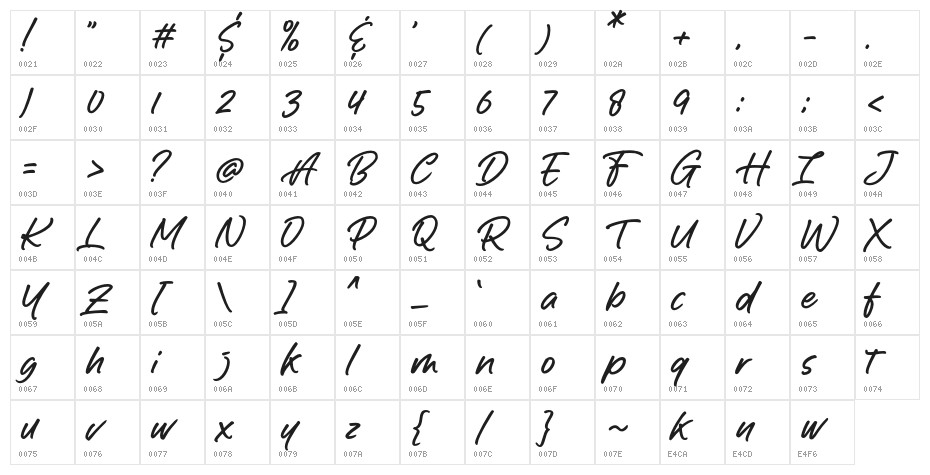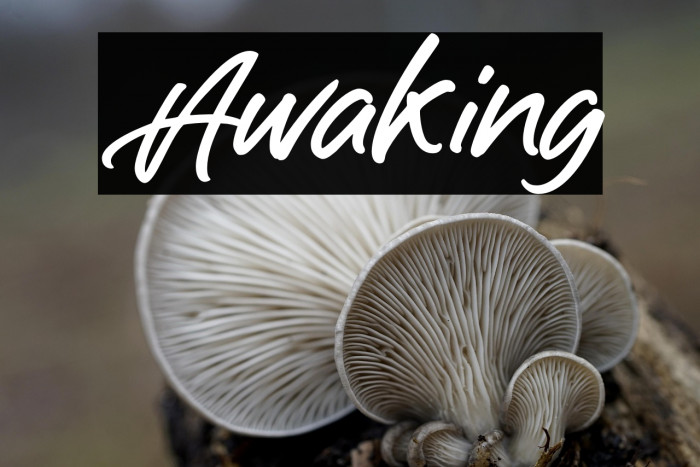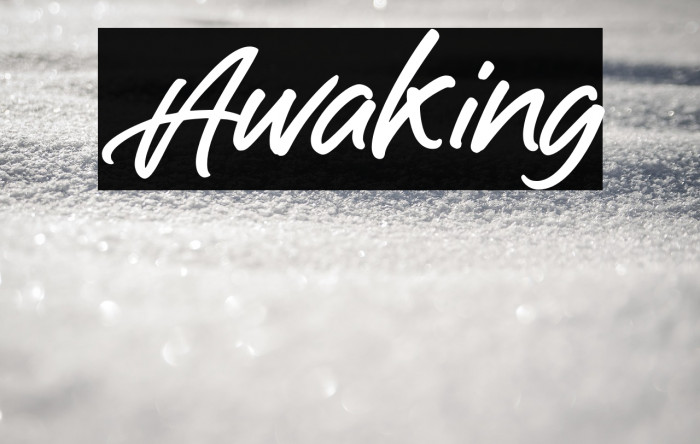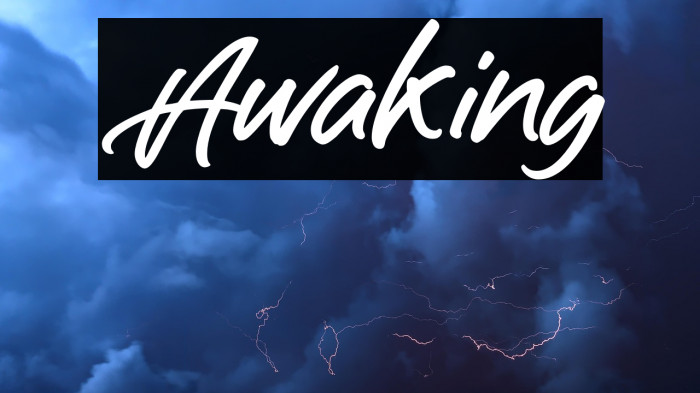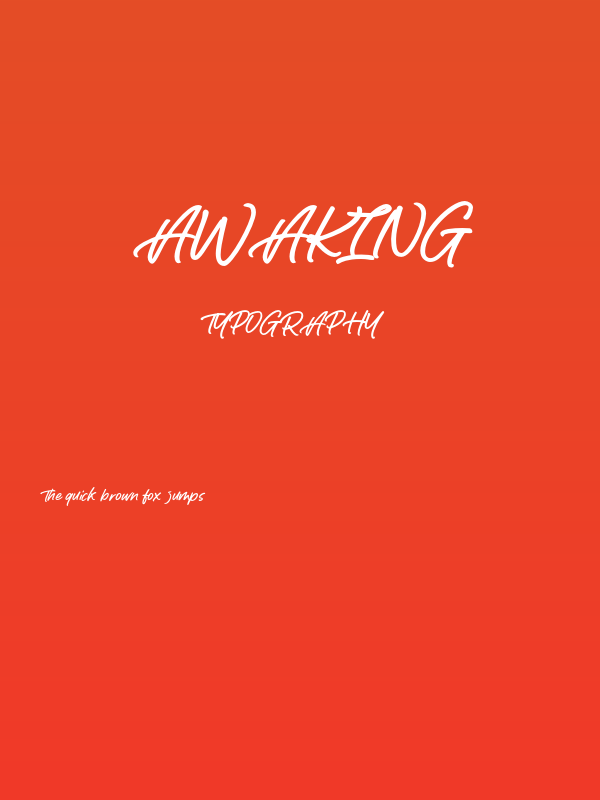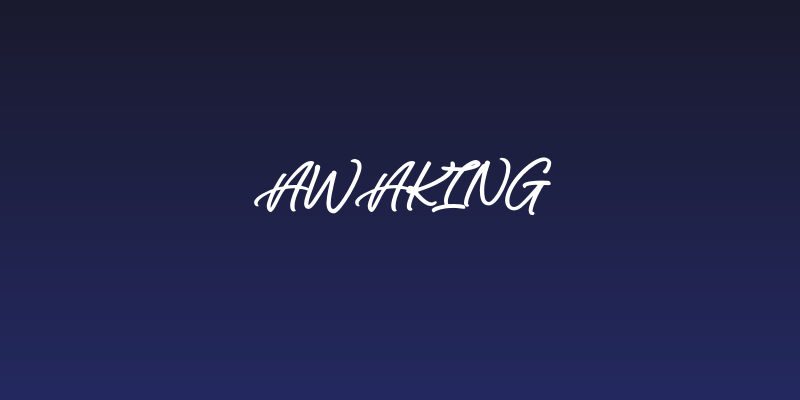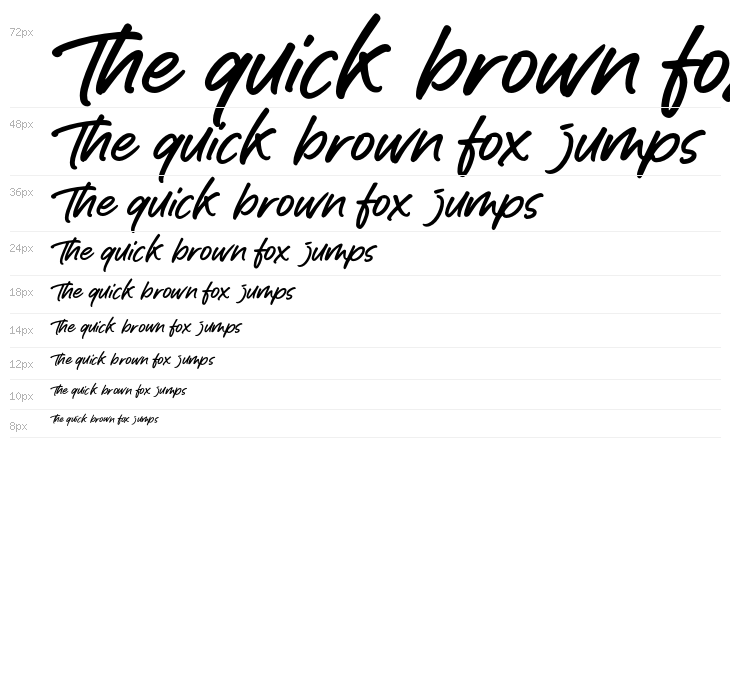
Awaking Font
Awaking Description
This font features a dynamic and fluid script style, characterized by its smooth, flowing lines and cursive letterforms. The uppercase letters are elegantly connected, while the lowercase letters exhibit a natural, handwritten appearance. The numbers and special characters maintain the same fluidity, adding to the cohesive look of the typeface. This font exudes a sense of personal touch and creativity, making it ideal for projects that require a humanistic and approachable feel. The strokes are consistent in thickness, providing a balanced and harmonious appearance across all characters.
| Overall Style | Handwritten |
| Use Case | Logos, Invitations, Personal Branding |
| Proposed Projects | Ideal for wedding invitations, greeting cards, personal branding, and creative projects that require a personal touch. |